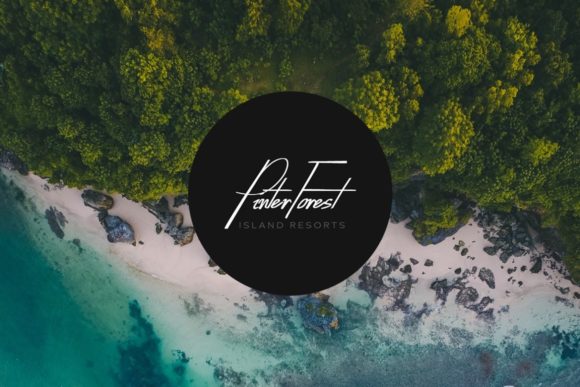
Arcadia & Brooklyn Font
db-ku.com - Script & Handwritten -- Arcadia & Brooklyn is a luxurious and unique duo font (sans serif and script). Whatever the topic, this font will be a wonderful asset to your font library, as it has the potential to enhance any creation.